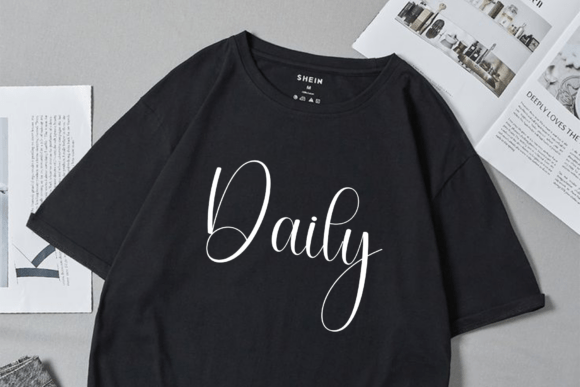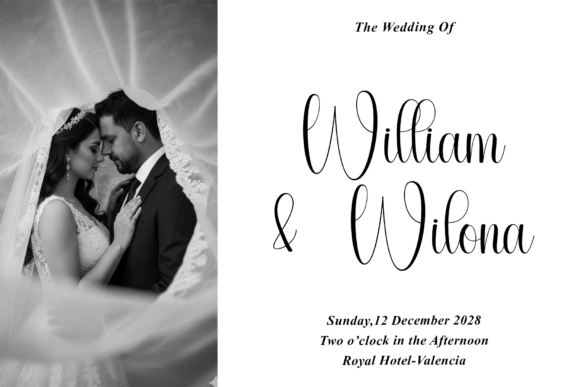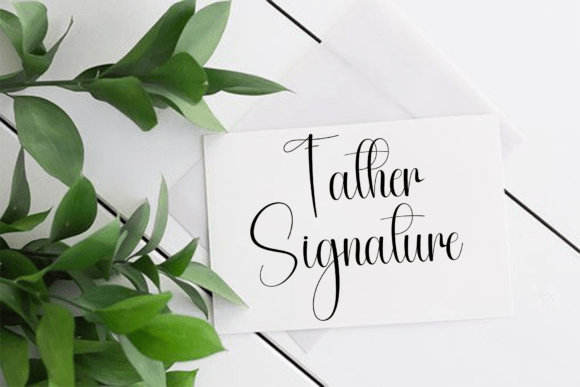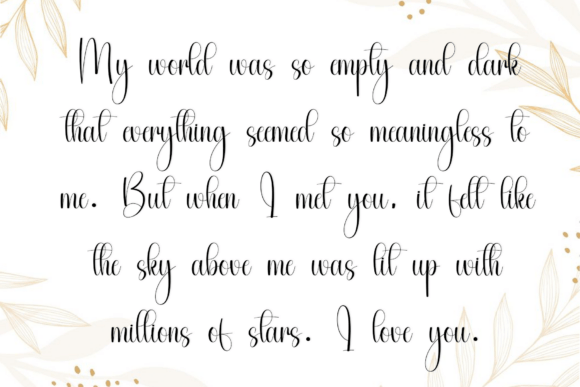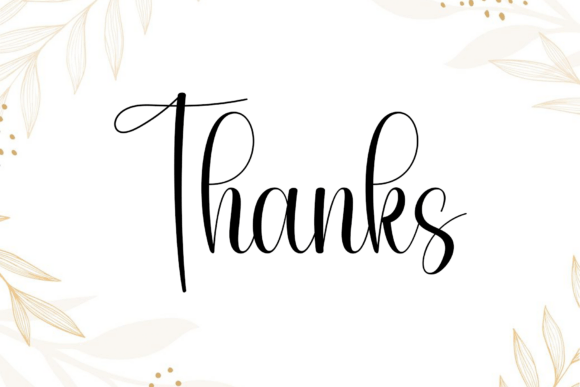
Discover the Charm of Haunting Font: Elevate Your Creative Projects with a Friendly and Cute Handwritten Style
Are you on the hunt for a font that adds a touch of warmth and personality to your creative projects? Look no further than Haunting Font, a delightful and casual handwritten font that’s sure to capture your audience’s hearts. With its incredibly friendly feel, Haunting Font is the perfect choice for designers, crafters, and DIY enthusiasts looking to infuse their work with a dash of whimsy and charm.
The Versatility of Haunting Font
One of the standout features of Haunting Font is its versatility. Whether you’re designing social media graphics for Instagram, crafting calligraphy scripts for DIY projects, or working on a larger design endeavor, this font is sure to turn your creative ideas into true pieces of art. Its adaptability makes it an excellent addition to any design toolkit, allowing you to experiment with various styles and applications.
Why Choose Haunting Font?
• Cute and Casual: Haunting Font boasts a cute and casual aesthetic that’s perfect for projects requiring a friendly and approachable tone. Its handwritten style lends a personal touch that’s hard to replicate with more formal fonts.
• Incredibly Friendly Feel: The font’s design prioritizes readability and warmth, making it an excellent choice for body text, headings, and decorative elements. Its friendly feel helps establish a connection with your audience, making your content more engaging and relatable.
• Perfect for Instagram and Social Media: In the realm of social media, standing out is crucial. Haunting Font’s unique charm can help elevate your Instagram posts, stories, and other social media content, giving your brand or personal account a distinctive voice.
• Ideal for DIY Projects: For crafters and DIY enthusiasts, Haunting Font offers endless possibilities. Use it for hand-lettering, calligraphy, and other craft projects to add a personalized and artistic touch.
Tips for Using Haunting Font Effectively
To make the most of Haunting Font, consider the following tips:
• Mix and Match: Combine Haunting Font with other fonts to create visual interest. Pair it with a sans-serif font for body text and use Haunting Font for headings or decorative elements.
• Experiment with Colors: Don’t be afraid to play with different colors and gradients. Haunting Font’s friendly feel lends itself well to bright, cheerful colors that can enhance your design’s overall mood.
• Emphasize Personalization: Take advantage of the font’s handwritten nature by adding personal touches to your text. This could include flourishes, varying letter sizes, or incorporating illustrations.
Where to Use Haunting Font
The applications for Haunting Font are vast. Here are some ideas to get you started:
• Social Media Graphics: Elevate your Instagram posts, Facebook updates, and Twitter headers with Haunting Font’s charming style.
• DIY Crafts: From scrapbooking and card-making to crafting personalized gifts, Haunting Font can add a special touch to your projects.
• Branding and Packaging: For businesses looking to stand out, Haunting Font can be used in logos, product labels, and packaging to convey a friendly and approachable brand image.
• Web Design: Use Haunting Font for website headers, blog posts, or as part of a custom web design to create a warm and inviting online space.
Font Name Haunting Font
Author Creatype Designer
Haunting Font is more than just a font – it’s a tool for bringing creativity and personality to life. Its cute and casual style, combined with its incredibly friendly feel, makes it an invaluable resource for designers, crafters, and anyone looking to add a touch of whimsy to their projects. Whether you’re working on Instagram graphics, DIY crafts, or larger design endeavors, Haunting Font is sure to turn your creative ideas into true pieces of art. So why wait? Discover the charm of Haunting Font today and elevate your creative projects to new heights!